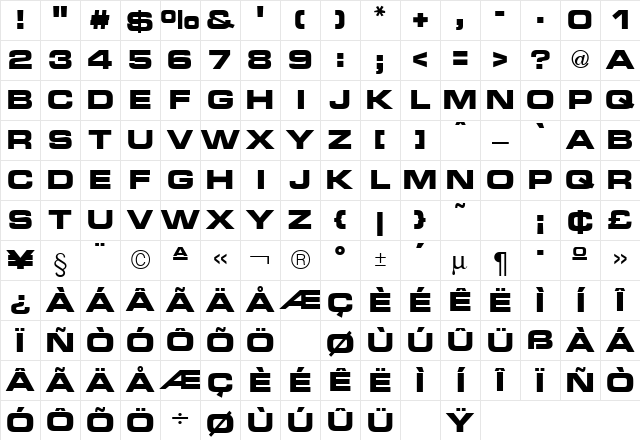
Micro Technic Extended Bold
Micro Technic Extended Family
Micro Technic Extended Bold
Design Context for Micro Technic Extended
Micro Technic Extended has a distinctly futuristic character, with geometric precision and clean angles that feel at home in technology, gaming, and sci-fi contexts. Its bold stroke weight gives it real presence on the page.
Pro Tip: Try Micro Technic Extended with generous letter-spacing in UI labels and navigation - the geometric forms benefit from room to breathe.